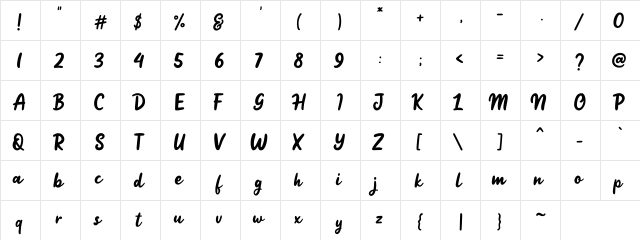
Jelly Bean Script - DEMO Regular
Design Context for Jelly Bean Script - DEMO Typeface
Jelly Bean Script - DEMO flows with the natural rhythm of handwritten lettering, making it ideal for designs that call for warmth and personal expression.